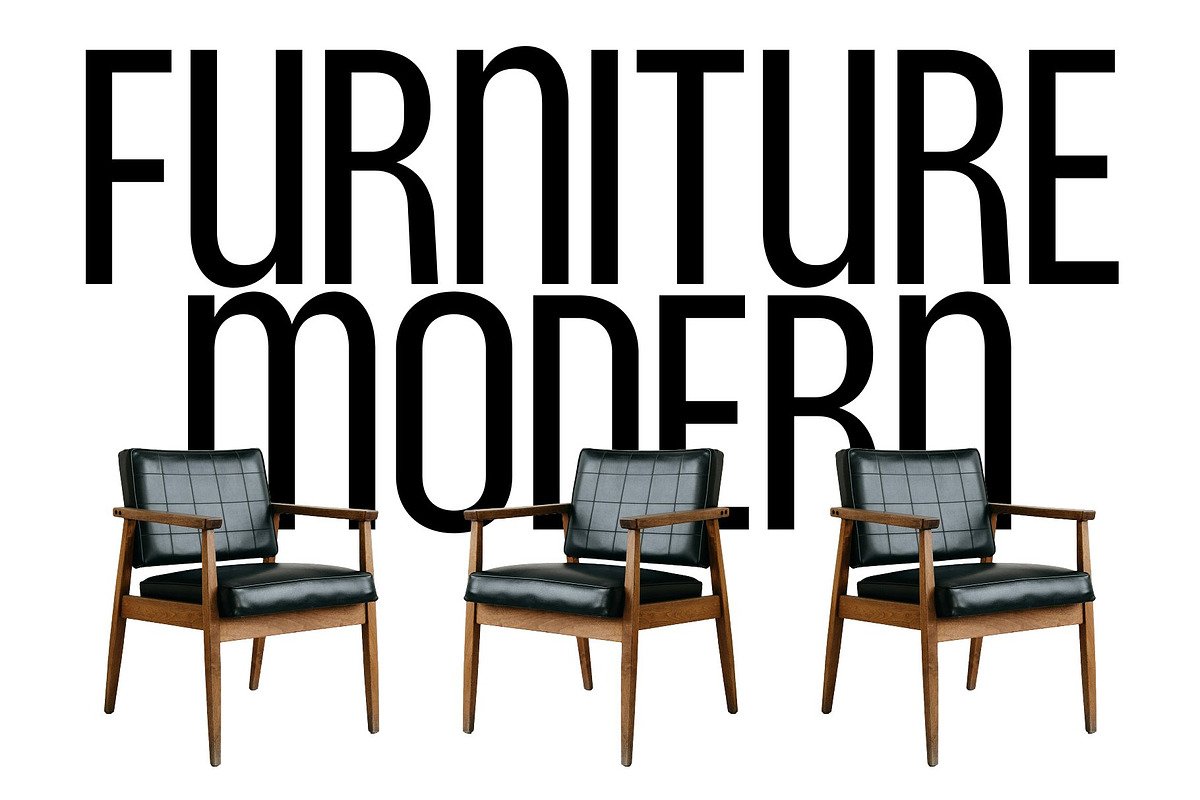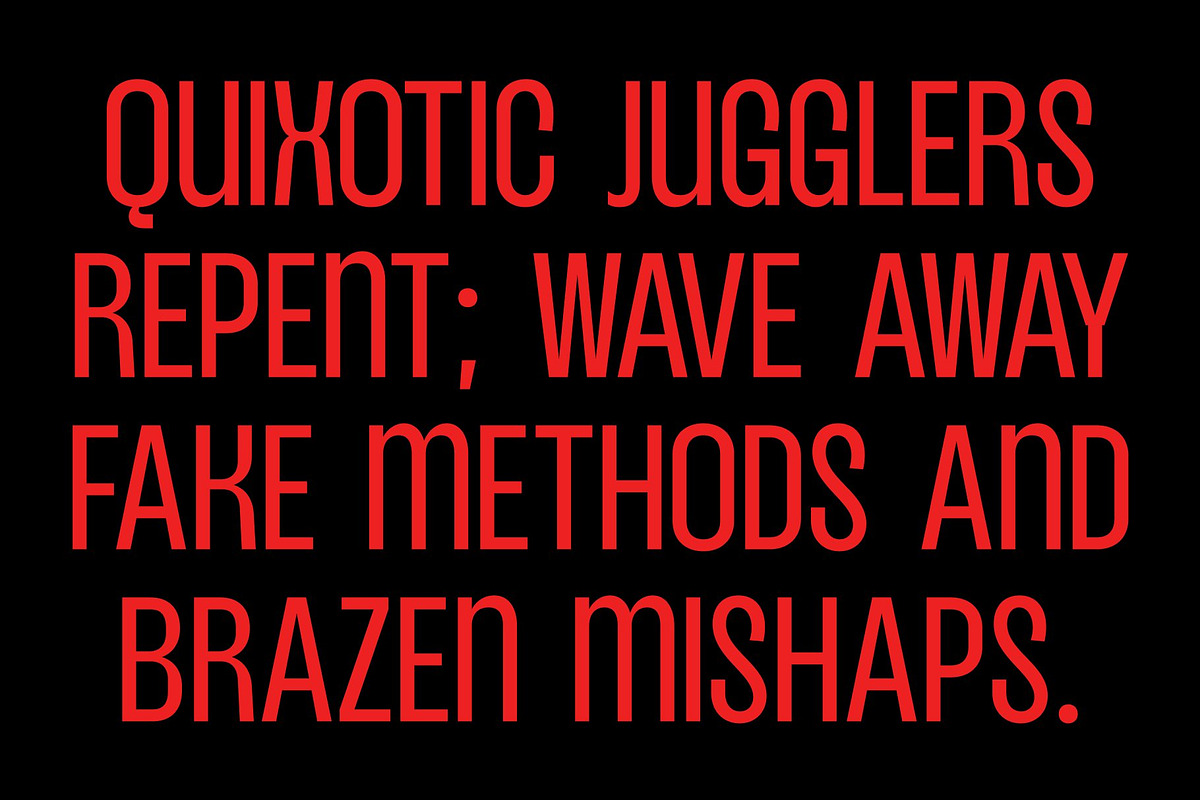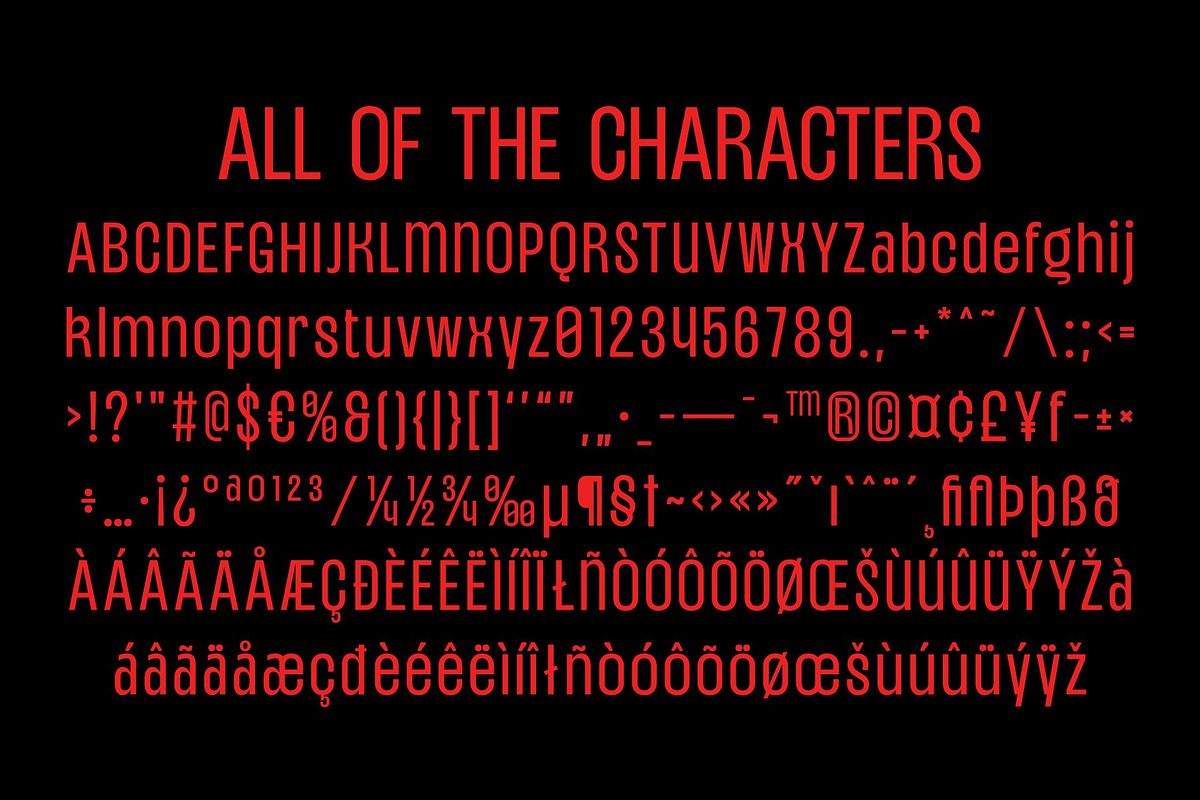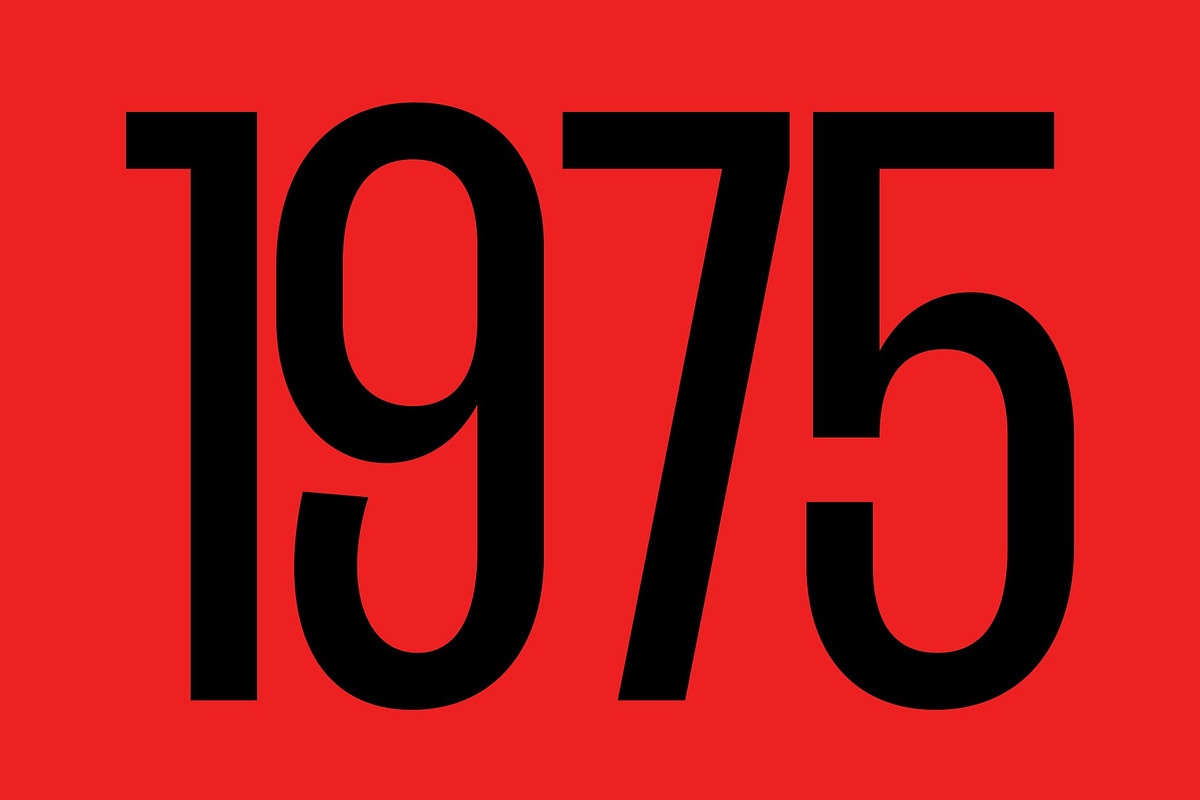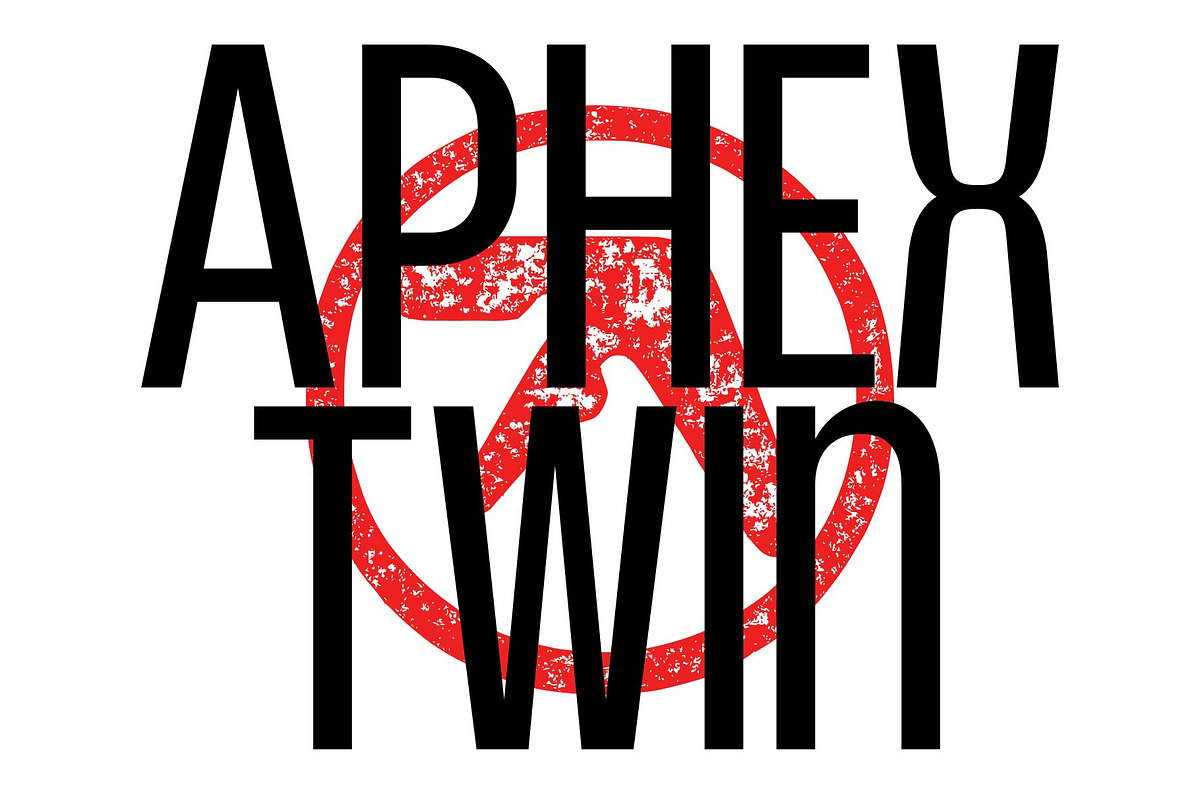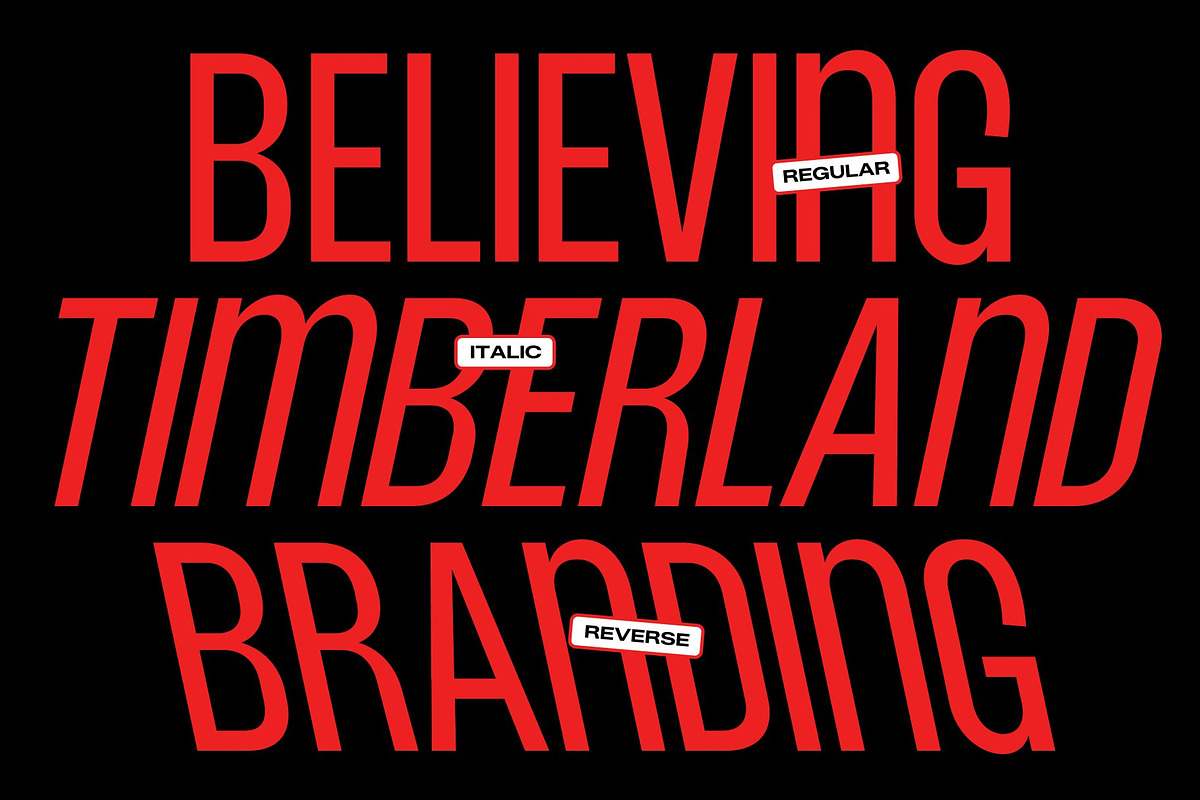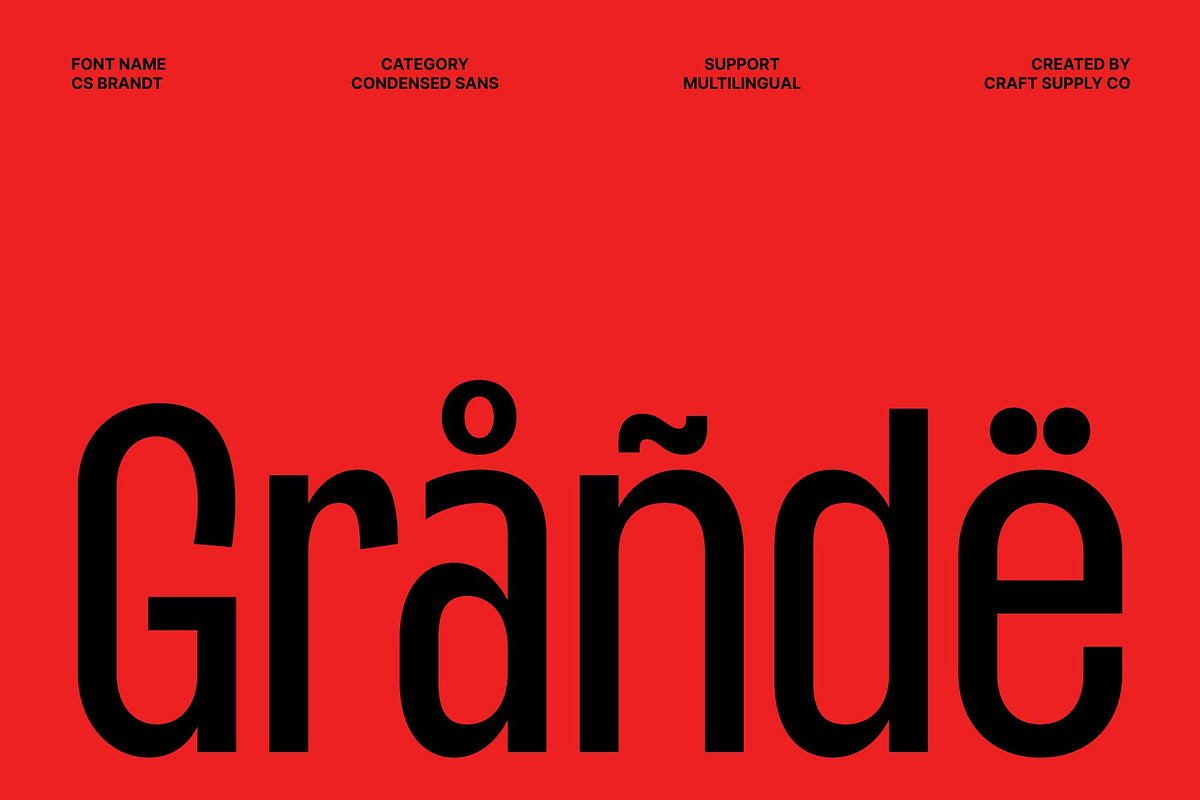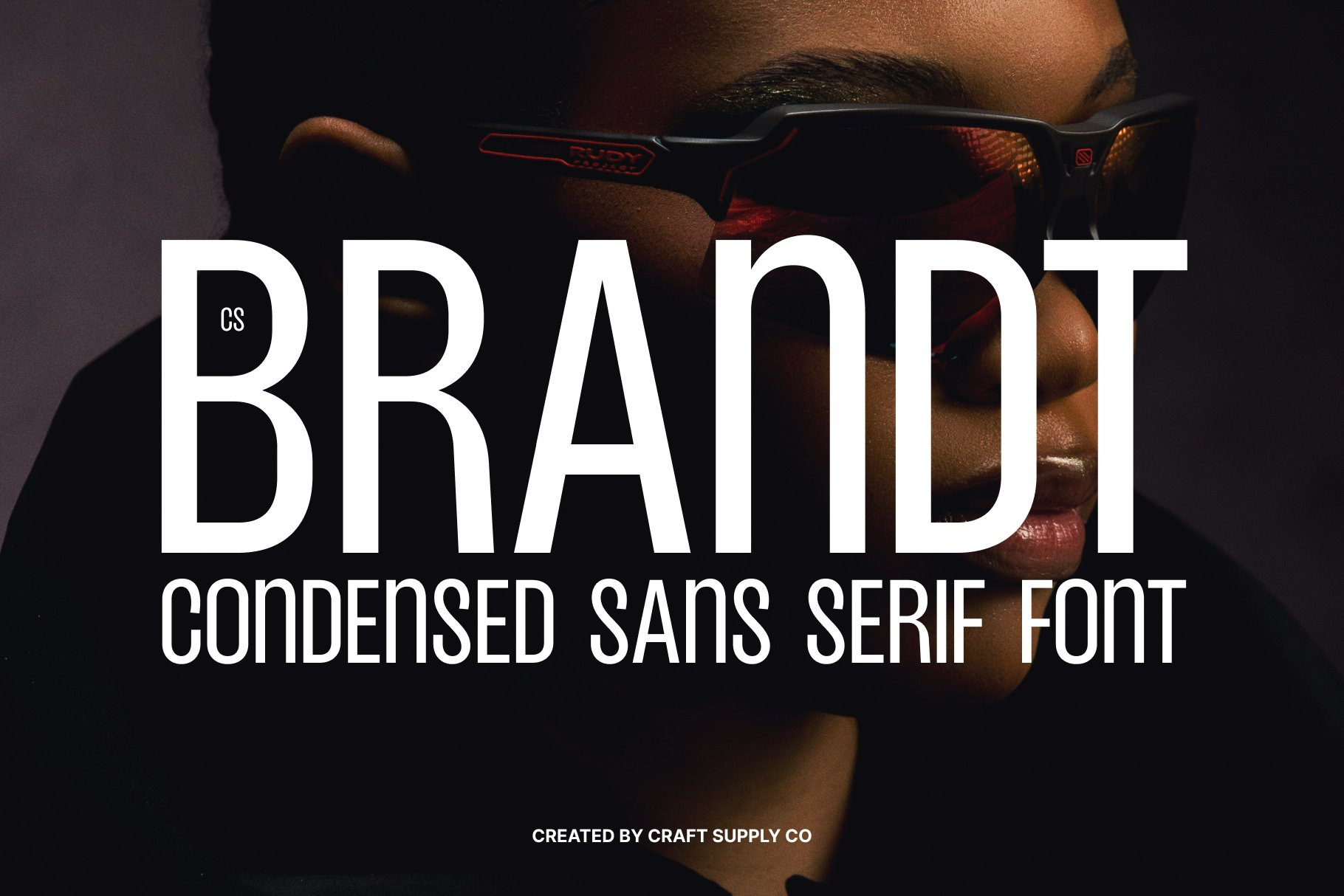
CS Brandt – Condensed Font
CS Brandt – Condensed Sans Serif with Contemporary Energy
Condensed Sans Serif with Modern Clarity This is a condensed sans serif font designed to deliver a clean and modern visual impact. Its streamlined letterforms create a sharp and efficient structure that feels contemporary and purposeful. The compact proportions allow text to stand out clearly while maintaining a polished and professional appearance.
Space-Saving Design with Strong Presence Built with a narrow width, this font maximizes space without sacrificing readability. This condensed form allows designers to fit more content into tight layouts while keeping headlines bold and legible. The result is a typeface that feels powerful, efficient, and visually striking in every composition.
Fresh Style with Contemporary Character This font brings a fresh and modern personality through its smooth lines and balanced geometry. The minimalist shapes create a confident tone that works beautifully across both digital and print design. Its contemporary character helps projects feel current, stylish, and relevant in fast-moving creative spaces.
Perfect for Headlines, Posters, and Branding From bold headlines to eye-catching posters and strong branding systems, this font adapts effortlessly to a wide range of uses. Its compact structure and modern clarity make it ideal for projects that need to communicate quickly and effectively while maintaining a strong visual identity.